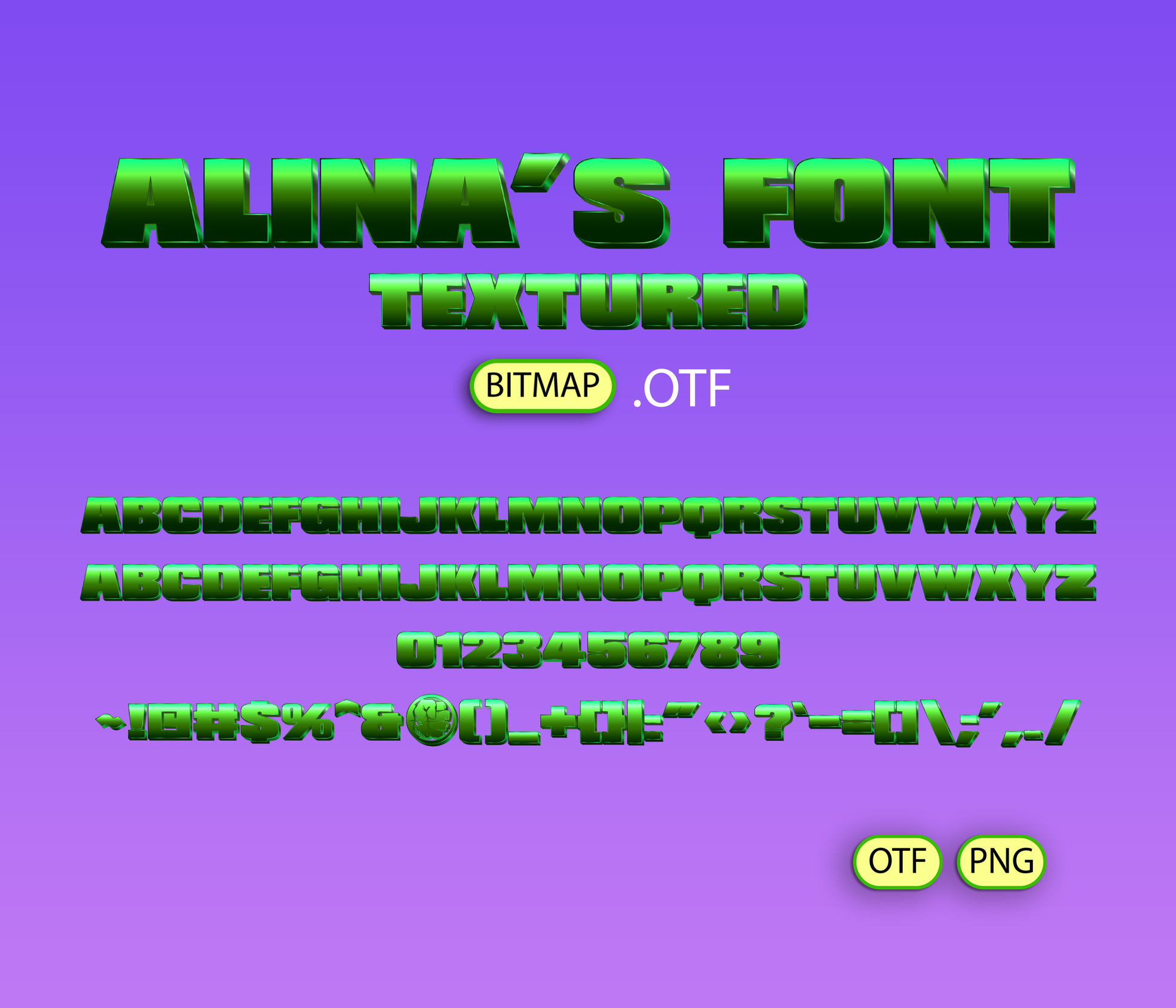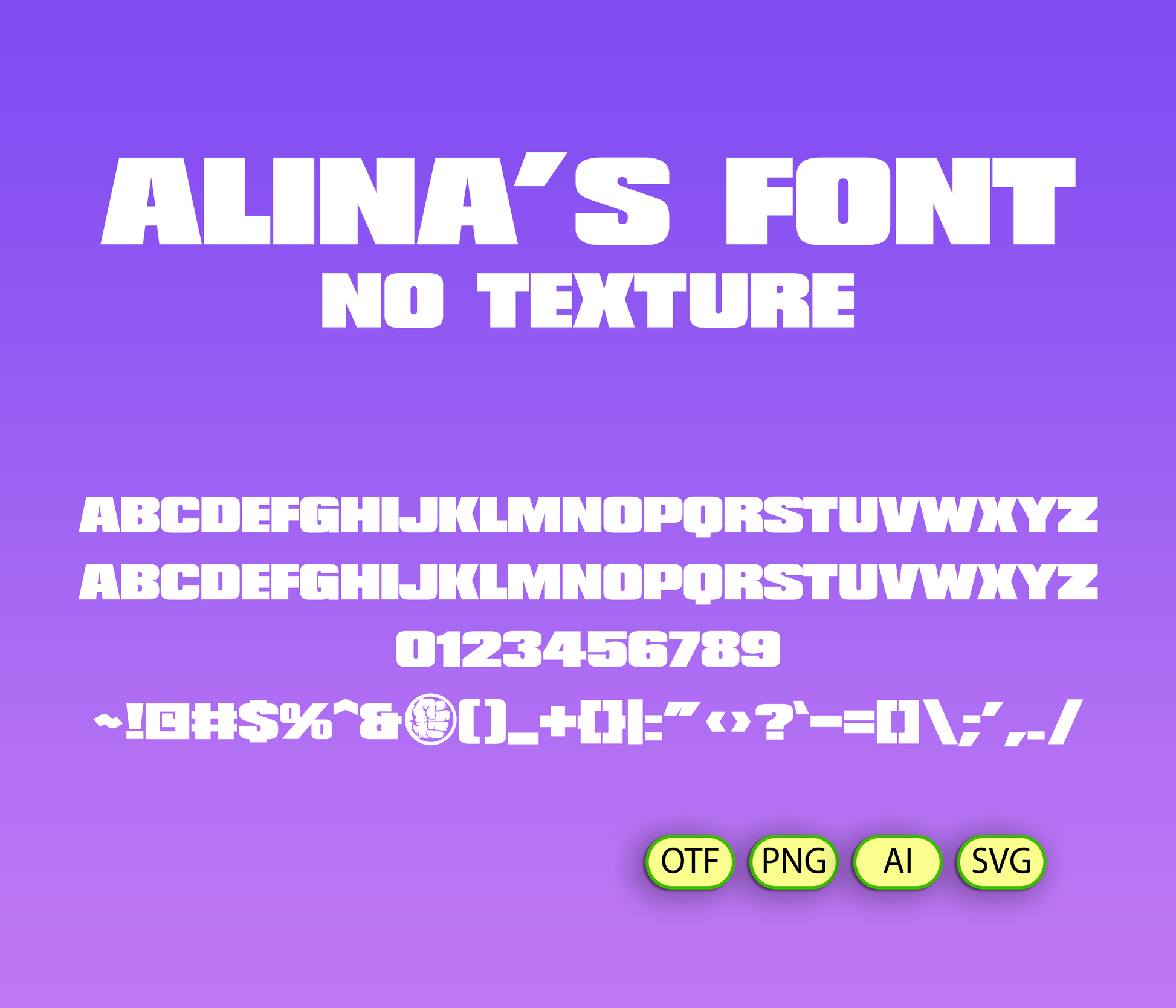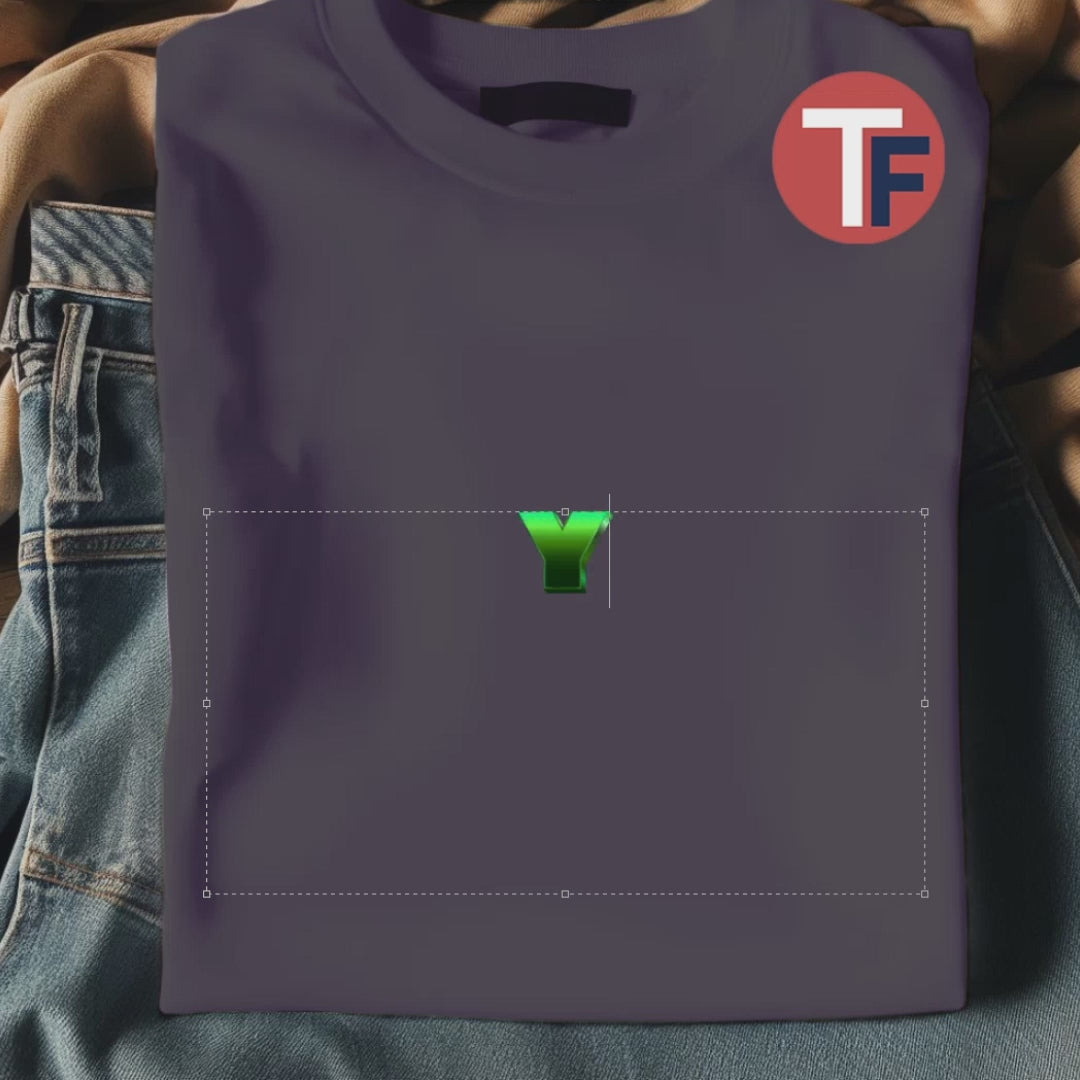
The Incredible Hero Font Textured
Unleash the Power with The Incredible Hero-Inspired Font
Step into the world of unstoppable strength and heroism with our Incredible Hero-inspired font. Perfect for fans, event planners, and designers looking to capture the raw power and dynamic essence of a legendary superhero, this font brings larger-than-life energy to your projects. Whether creating event invitations, themed merchandise, or digital content, our Incredible Hero font ensures your projects resonate with the might and excitement of the superhero universe.
Our Incredible Hero-inspired font features bold, blocky characters with a rugged, impactful design reflecting sheer power and intensity. This versatile font is ideal for various applications:
- Event Invitations: Perfect for eye-catching invites for superhero parties, movie nights, or comic conventions.
- Merchandise Design: Ideal for designing t-shirts, posters, and accessories that capture the essence of The Incredible Hero.
- Digital Media: Enhance websites, blogs, and social media content with powerful headers and graphics.
- Educational Materials: Use in presentations, worksheets, and educational content focused on comics, heroism, or storytelling.
- Personal Projects: Add a touch of superhero strength to scrapbooking, DIY crafts, or home decor inspired by adventures of The Incredible Hero.
Incredible Hero Font Generator
Many people seek out an Incredible Hero Font generator online to mimic this look. Steer clear! No font generator can match the quality of this Incredible Hero Font, which comes in two versatile versions: a textured colored font and a simple font. This is particularly beneficial if you plan to use it with a cutting machine.
Our Incredible Hero font not only pays tribute to a legendary superhero but also empowers you to infuse your designs with raw power and intensity. Whether crafting promotional materials, designing unique merchandise, or adding a bold touch to personal projects, this font allows you to communicate with the unstoppable energy and heroism of The Incredible Hero. Ready to smash through creative limits and transform your projects? This font is your key to unlocking a world of powerful and impactful design.